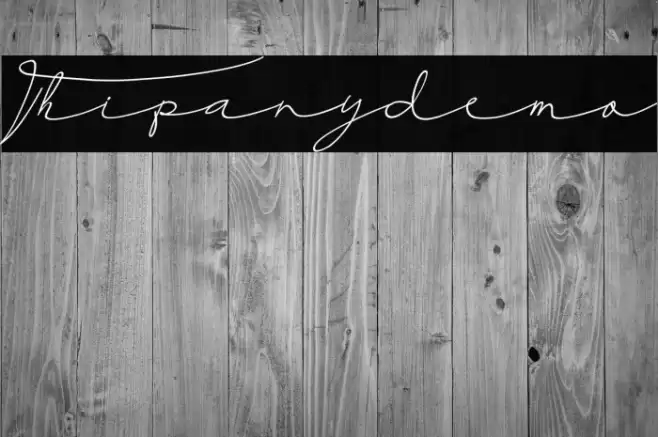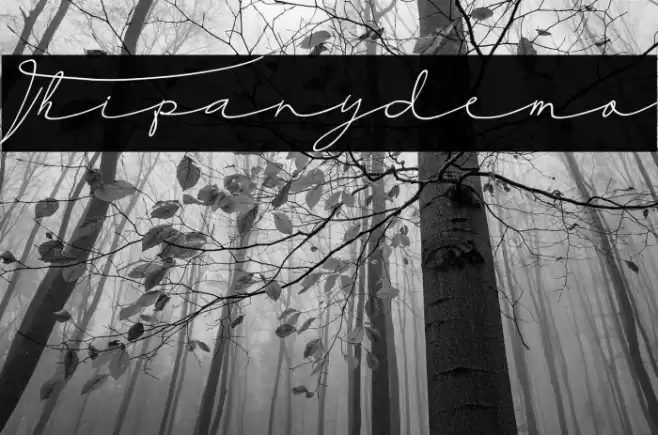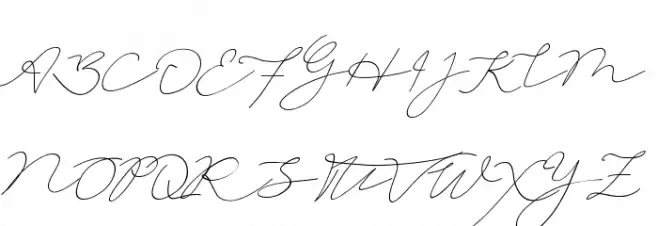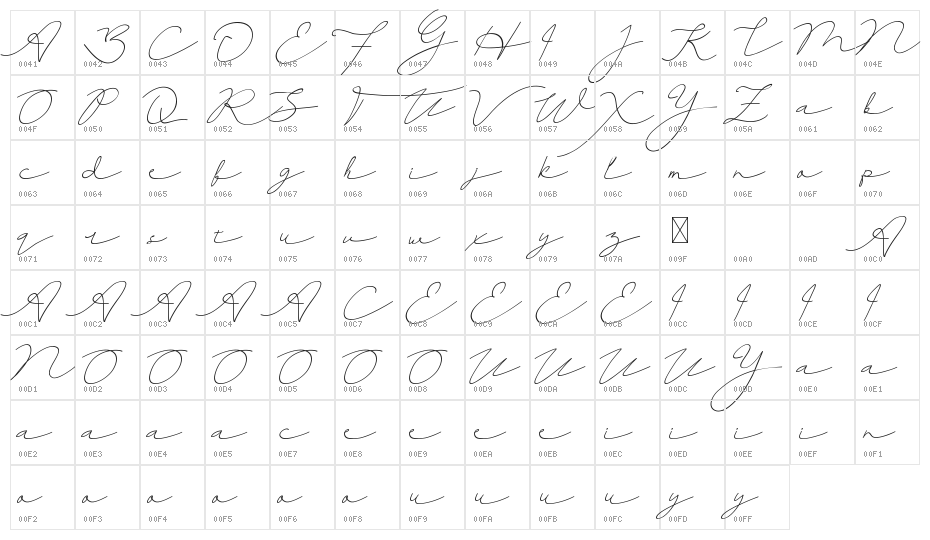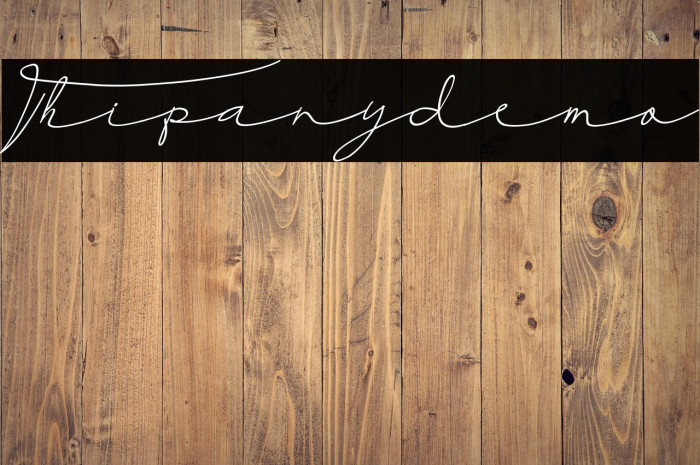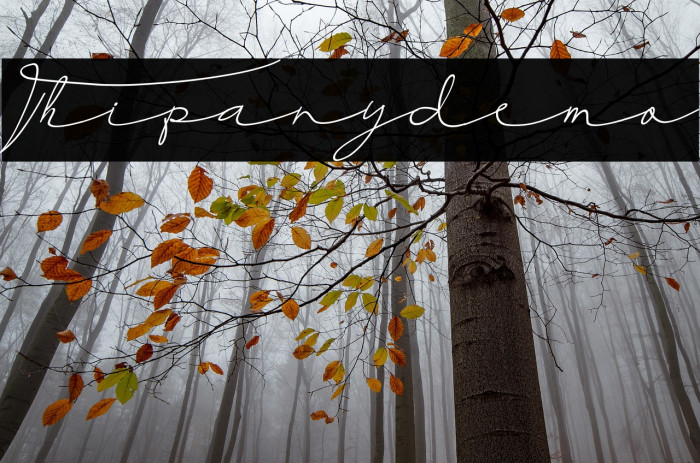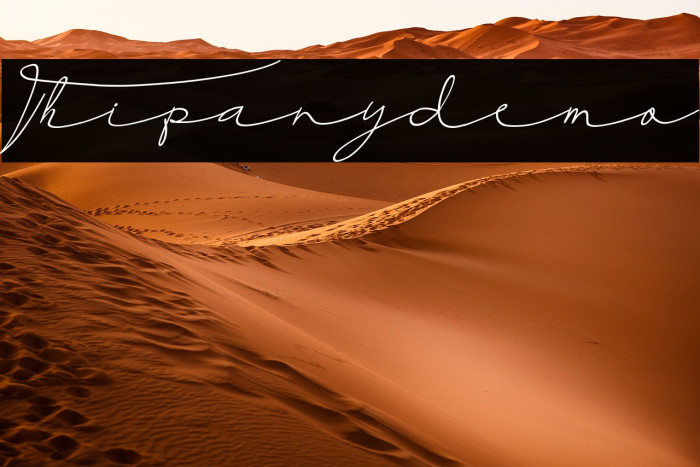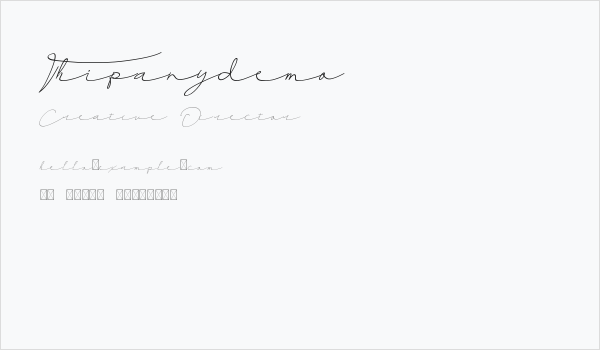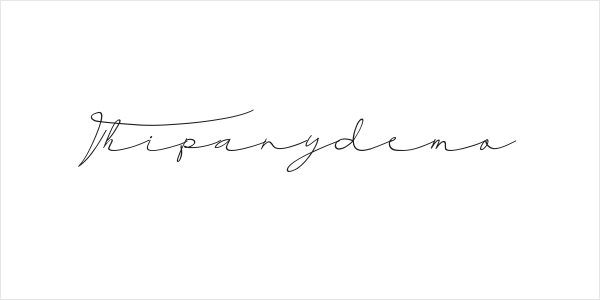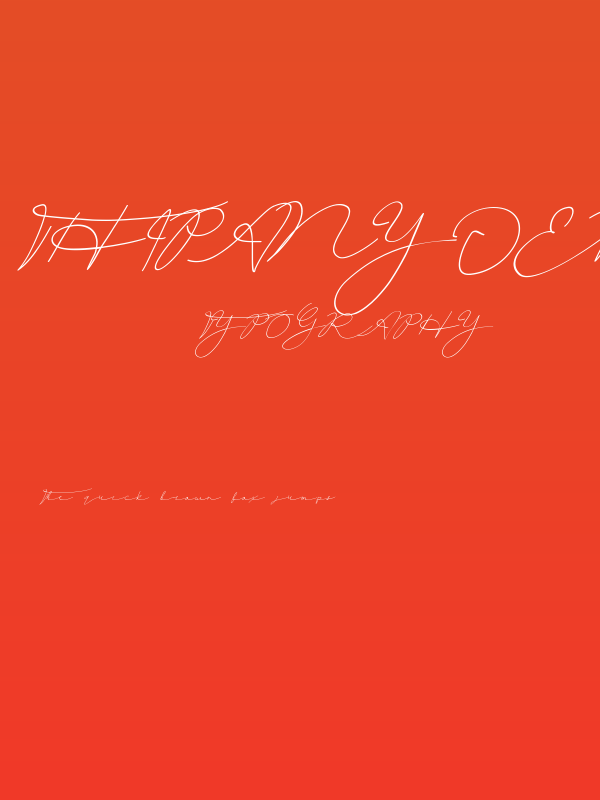
Thipanydemo Font
Thipanydemo Description
This font features an elegant, flowing script style that mimics natural handwriting with a sophisticated flair. The characters are connected in a seamless manner, creating a continuous line that enhances its cursive nature. The strokes are thin and delicate, lending a sense of grace and fluidity to the text. Each letter is distinct yet harmoniously integrated with the others, making it ideal for conveying a personal touch. The uppercase letters are slightly larger and more ornate, while the lowercase letters maintain a consistent, smooth flow. This font is perfect for projects that require a touch of elegance and personalization, such as invitations, greeting cards, and branding materials.
An elegant, flowing script font with a natural handwriting style from Regular fonts.
- Proposed Projects: Ideal for wedding invitations, personal branding, greeting cards, and elegant stationery.
- Weight: Light
- Character Spacing: Tight
- Overall Style: Elegant, Handwritten
- Use Case: Logos, Invitations, Personal branding